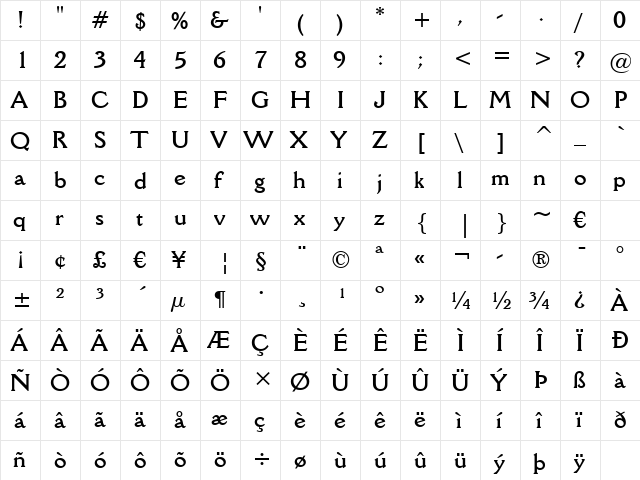
DellaRobbia BT Bold
Design Context for DellaRobbia BT Typeface
DellaRobbia BT takes a measured approach to typography — its balanced proportions and neutral character make it a reliable workhorse for both digital and print work. Its bold stroke weight gives it real presence on the page.